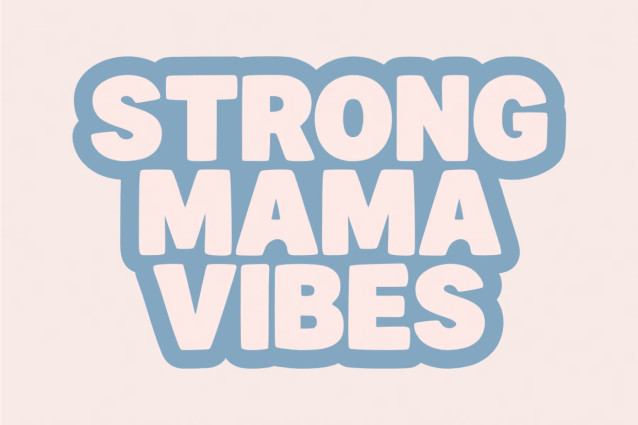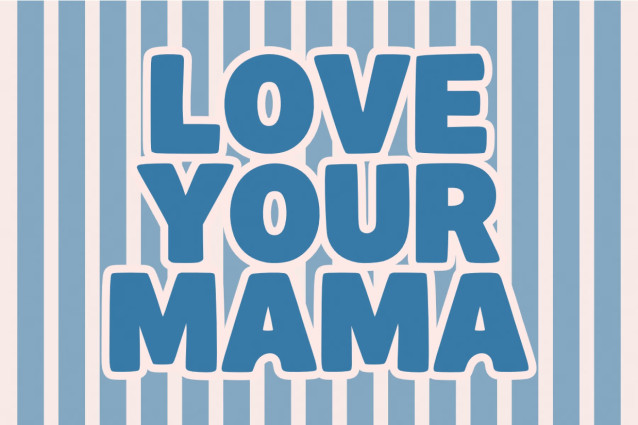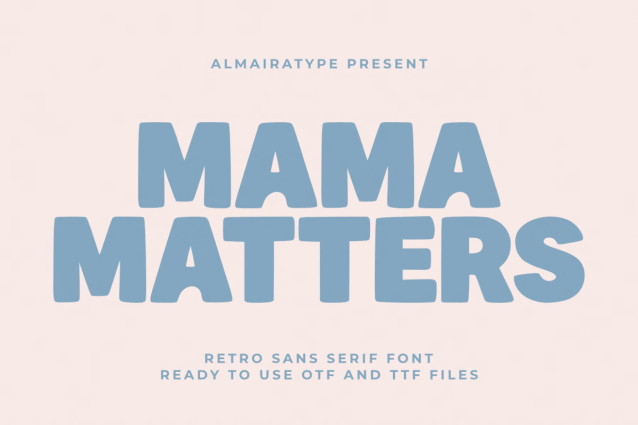
Mama Matters Font
Mama Matters is a retro sans serif font meticulously designed to bring a delightful vintage warmth and high-impact aesthetic to your modern creative projects. Featuring a bubbly, thick structural anatomy with a solid display weight and smoothly rounded geometric contours, this typeface beautifully bridges the gap between classic 70s nostalgia and contemporary commercial design trends.